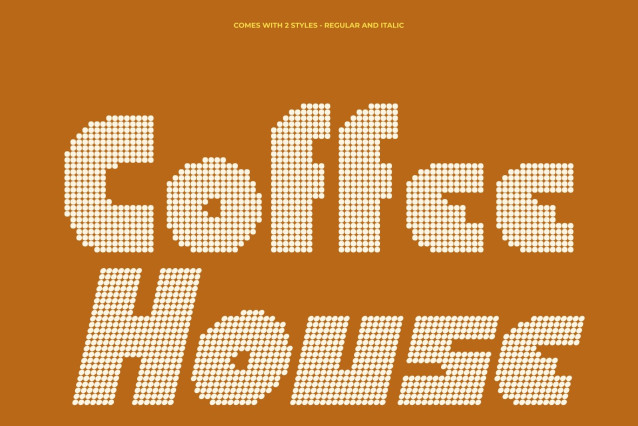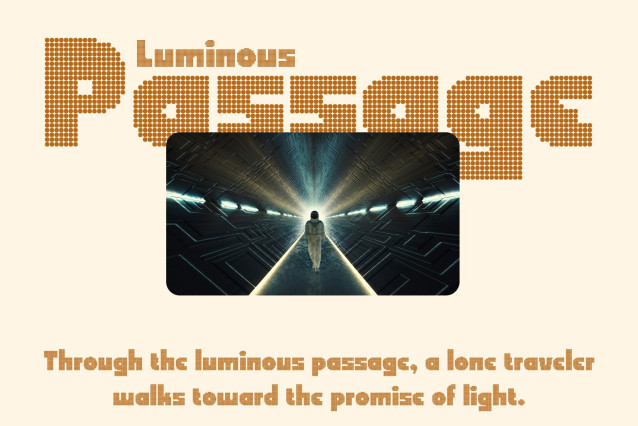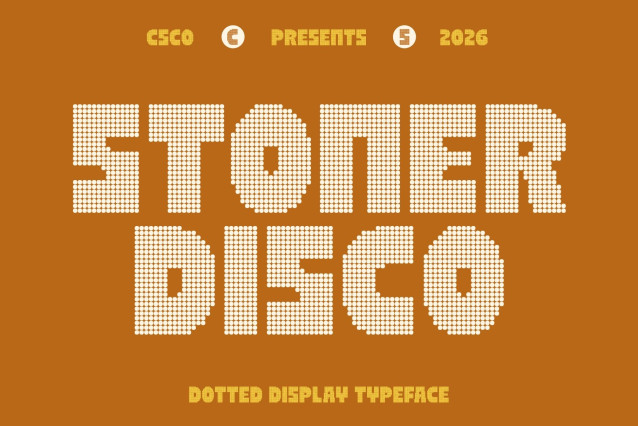
CS Stoner Disco Font
CS Stoner Disco – Industrial Power with Geometric Precision
Bold Geometric Sans with Disco Energy
This font transforms a strong geometric sans serif into a lively dotted display font that radiates rhythm and movement. Its bold, blocky letterforms maintain a powerful industrial presence while the disco-style dot texture introduces sparkle, excitement, and playful visual energy.
Strong Shapes with Party-Ready Impact
Sharp edges and structured geometry give each character a confident, commanding feel. The dotted styling enhances this structure with a vibrant dance-floor personality, creating typography that feels both tough and celebratory at the same time.
Industrial Strength Meets Cheerful Expression
This font balances rugged industrial aesthetics with a joyful, upbeat mood. The fusion of precision and playful texture makes it ideal for designs that want to feel bold yet fun, modern yet expressive.